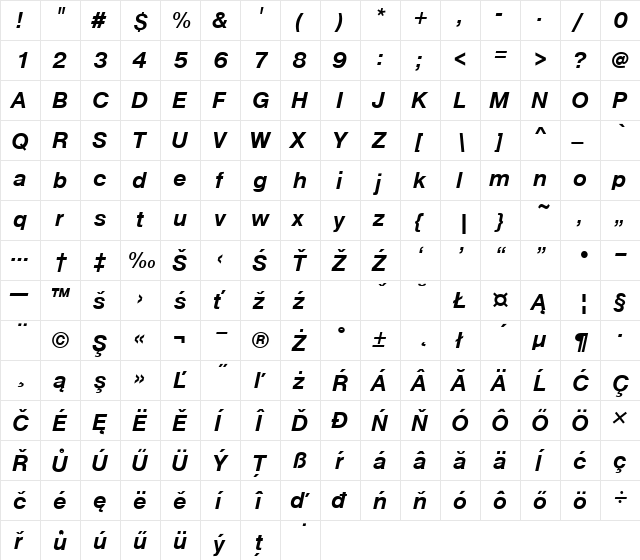
NimbuSanDEE Bold Italic
Design Context for NimbuSanDEE Typeface
NimbuSanDEE is a composed and adaptable typeface that performs quietly and consistently across a wide range of design contexts. The dynamic lean of this cut emphasises speed and emphasis in any layout. The heavy weight commands attention and anchors typographic hierarchies.
Pro Tip: Try NimbuSanDEE for annotation and caption copy alongside an upright companion — the contrast in angle creates a dynamic but ordered typographic system.